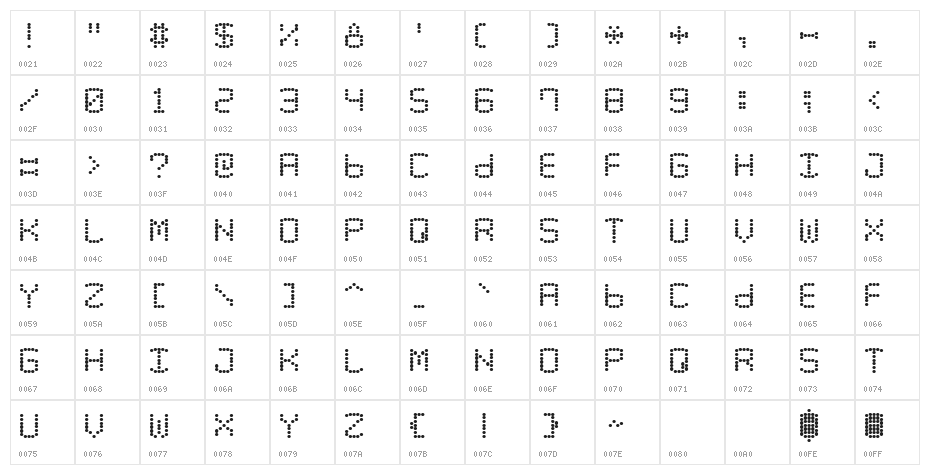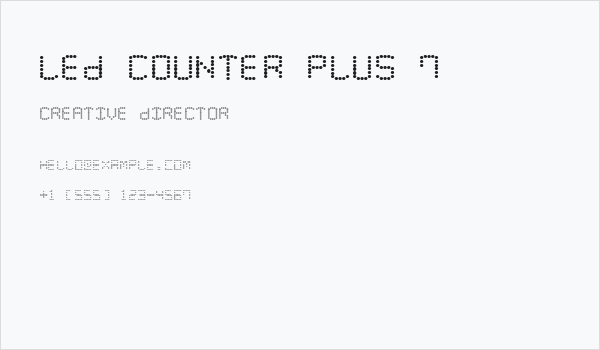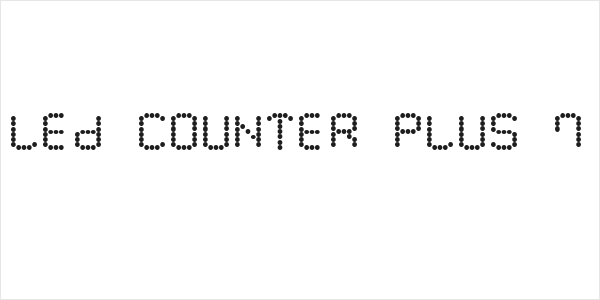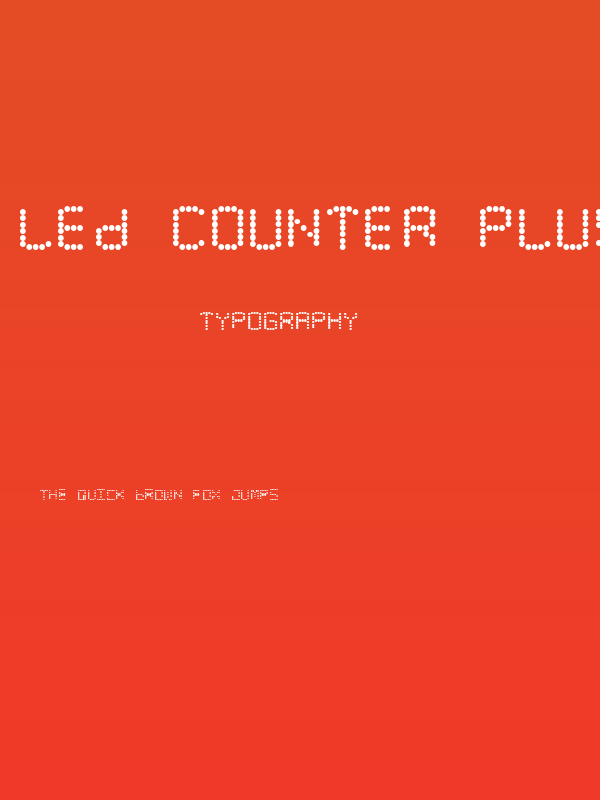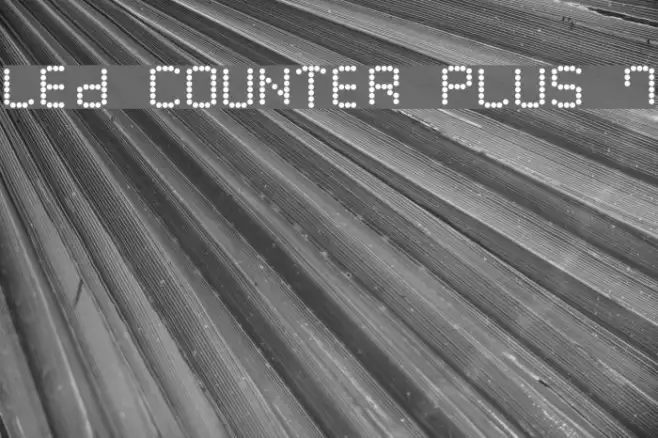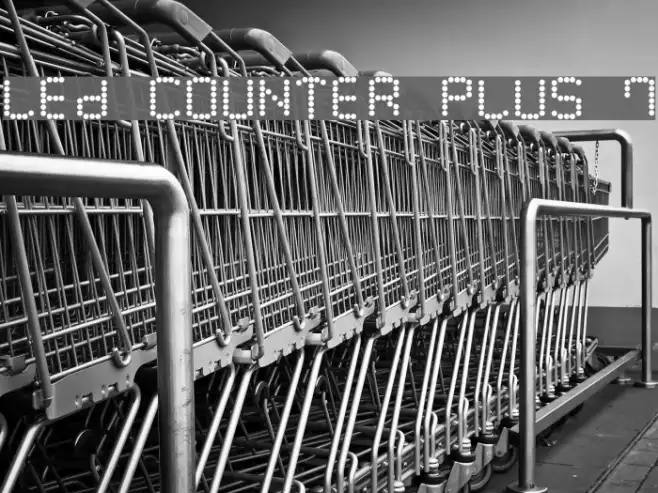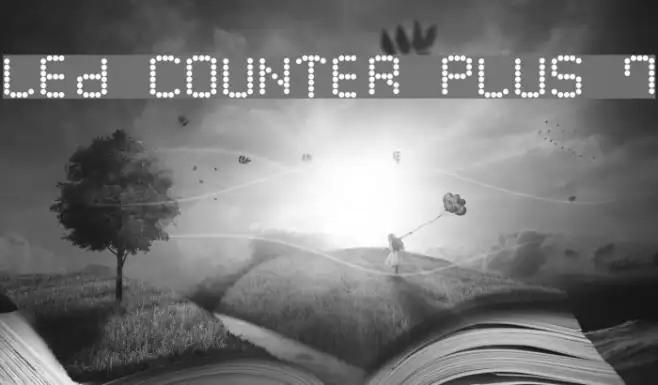
LED Counter Plus 7 Font
LED Counter Plus 7 Description
This font features a unique design composed entirely of small, evenly spaced dots forming each character. The style mimics the appearance of LED displays, giving it a digital and modern feel. The characters are uniformly constructed, maintaining a consistent height and width across both uppercase and lowercase letters, as well as numbers and special characters. The dot-based structure provides a playful yet technical aesthetic, making it suitable for projects that require a futuristic or electronic theme. The spacing between the dots is precise, ensuring legibility while maintaining the distinct LED look.
| Use Case | Headlines, Logos, Digital displays |
| Proposed Projects | Ideal for digital displays, tech-themed posters, electronic gadgets, and modern branding. |